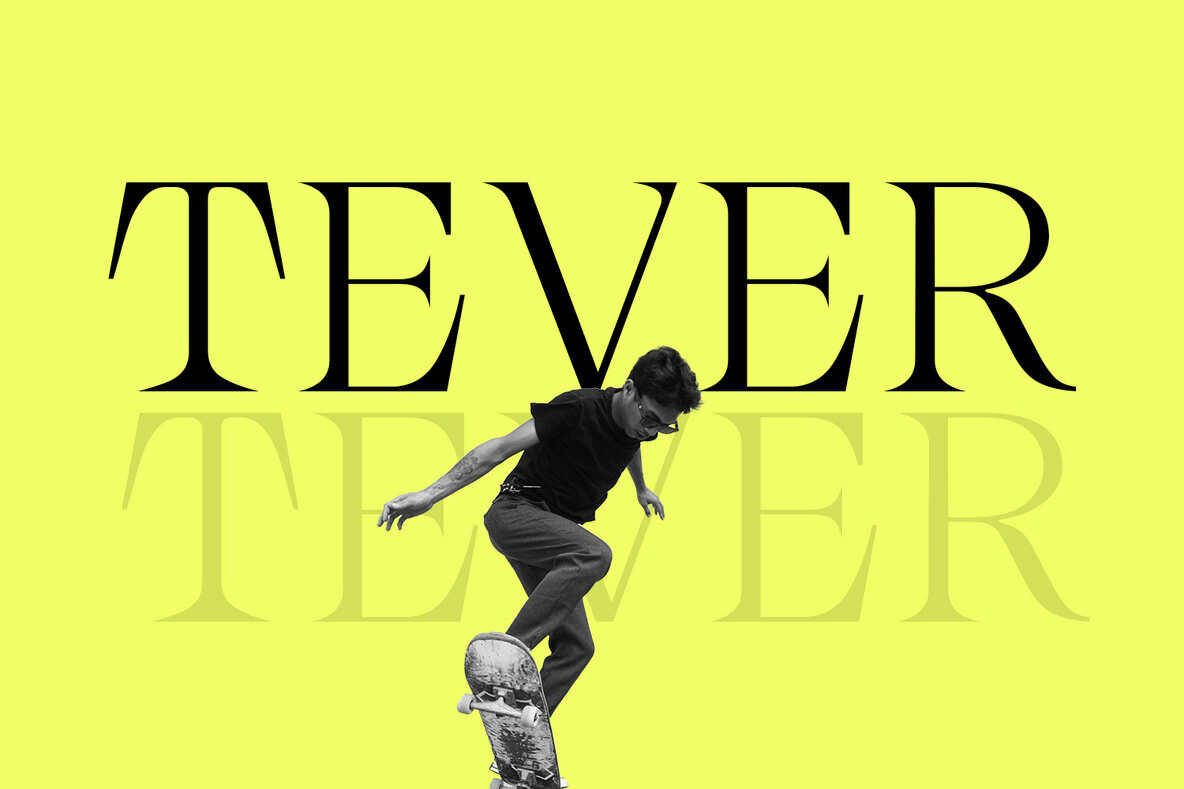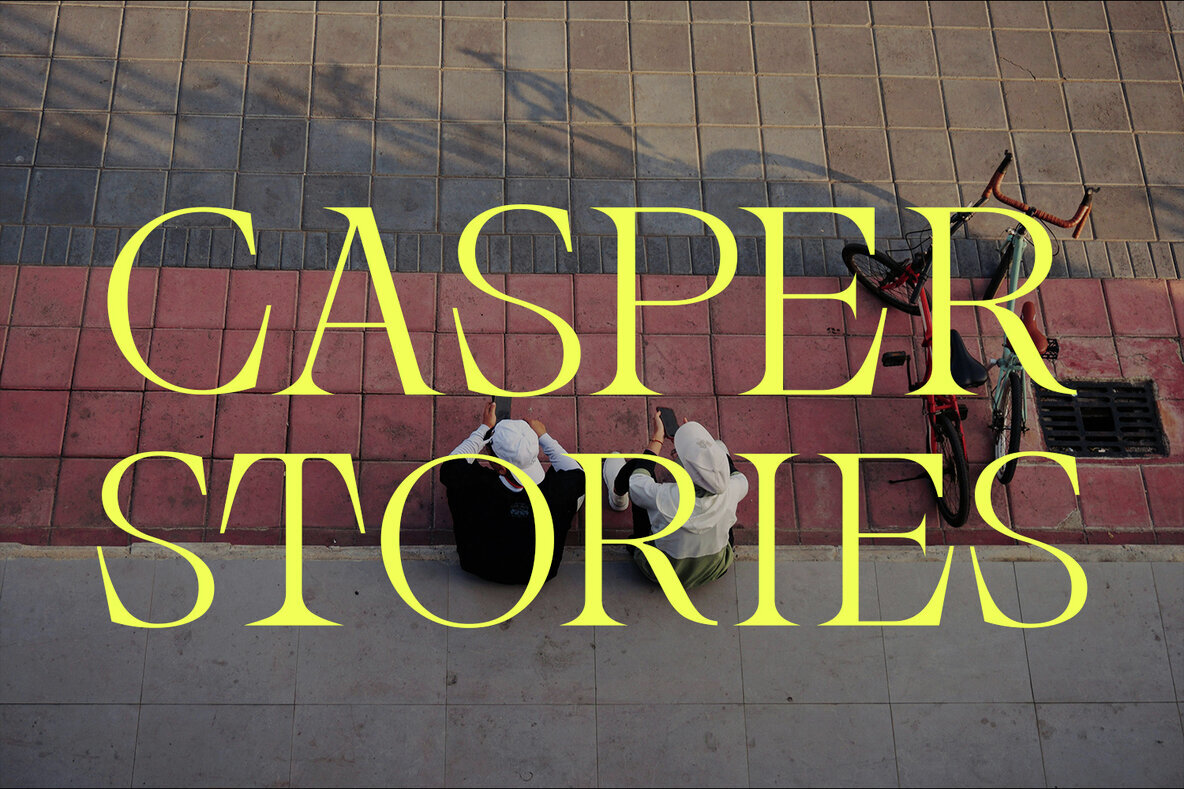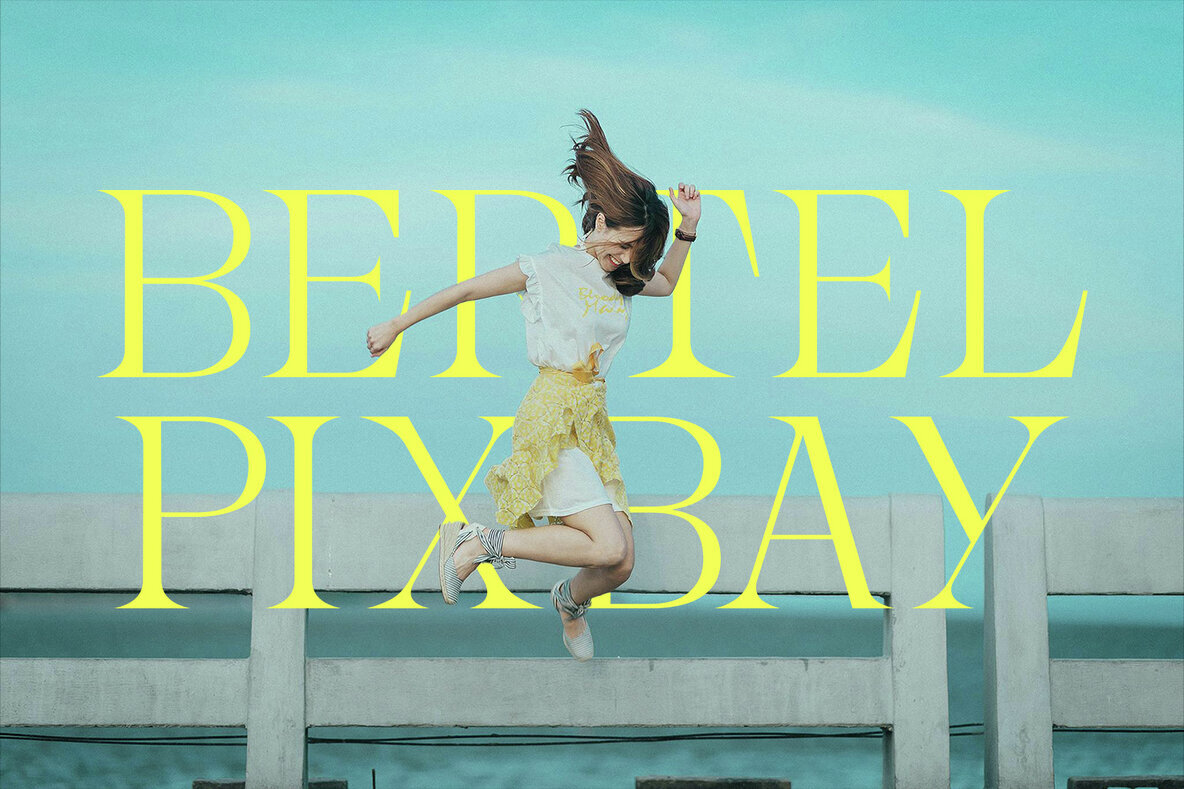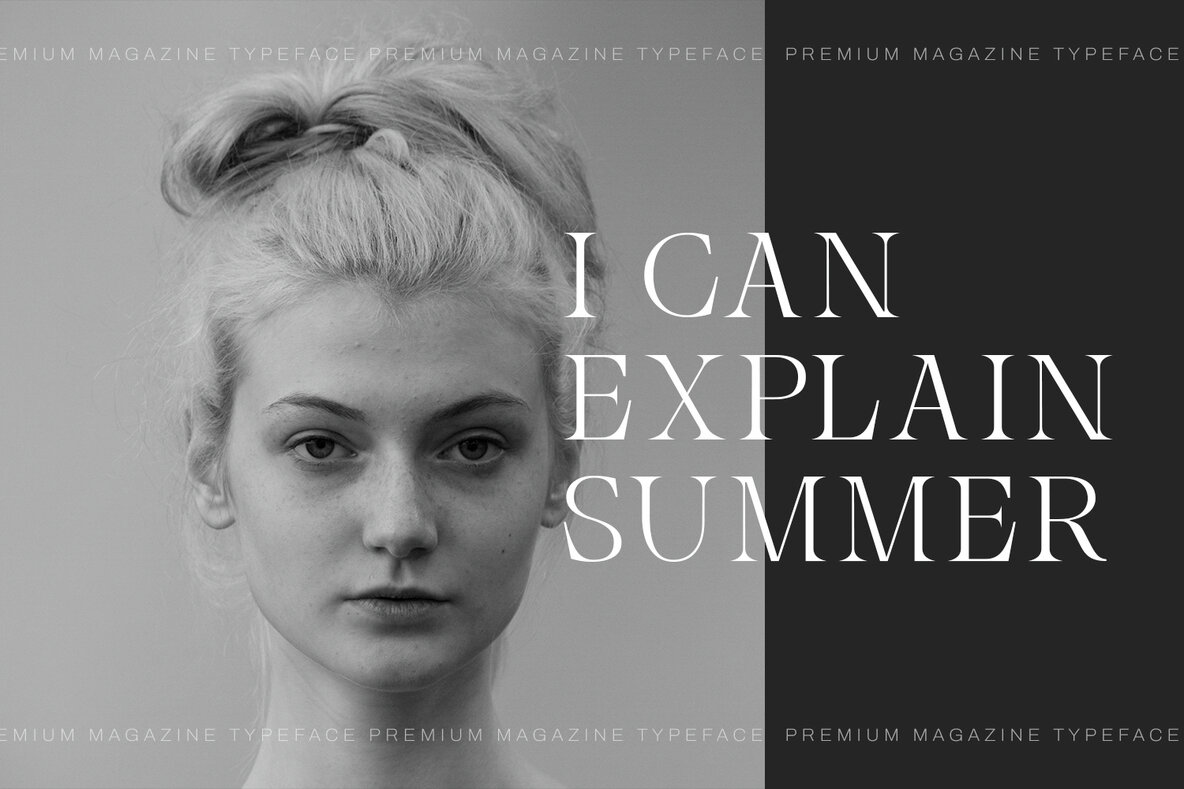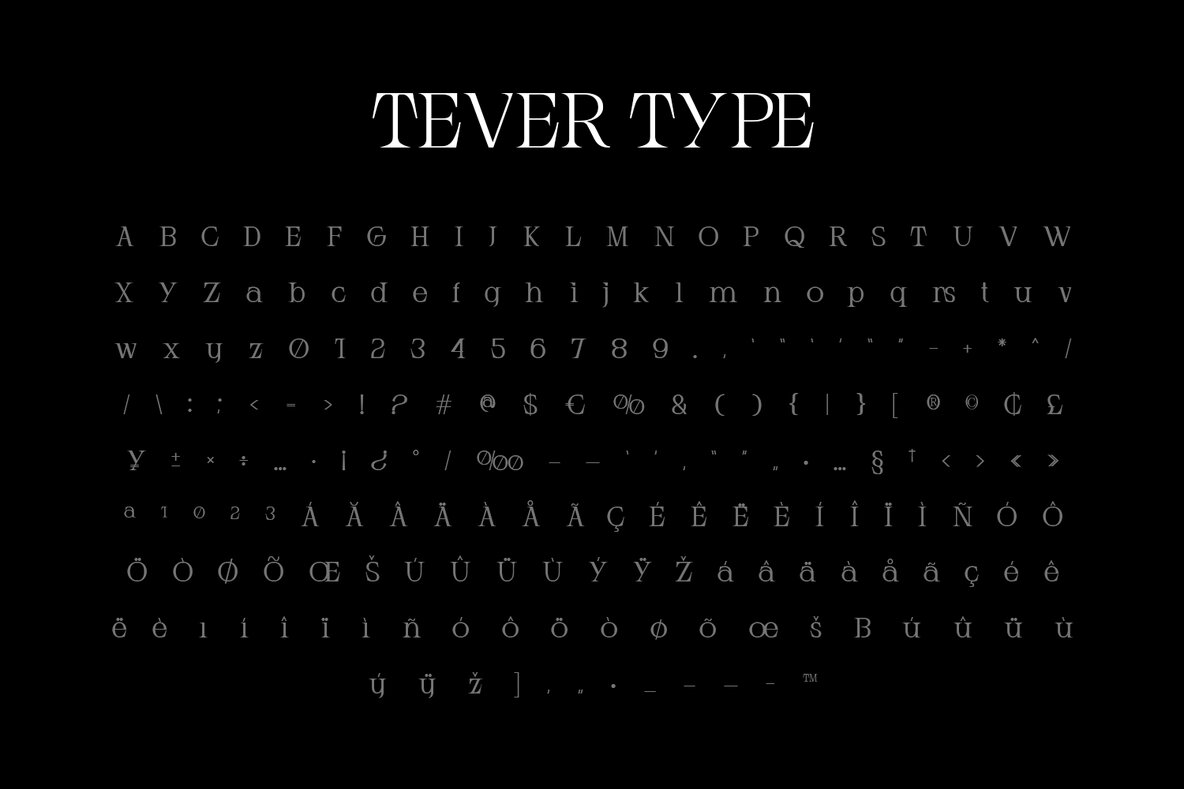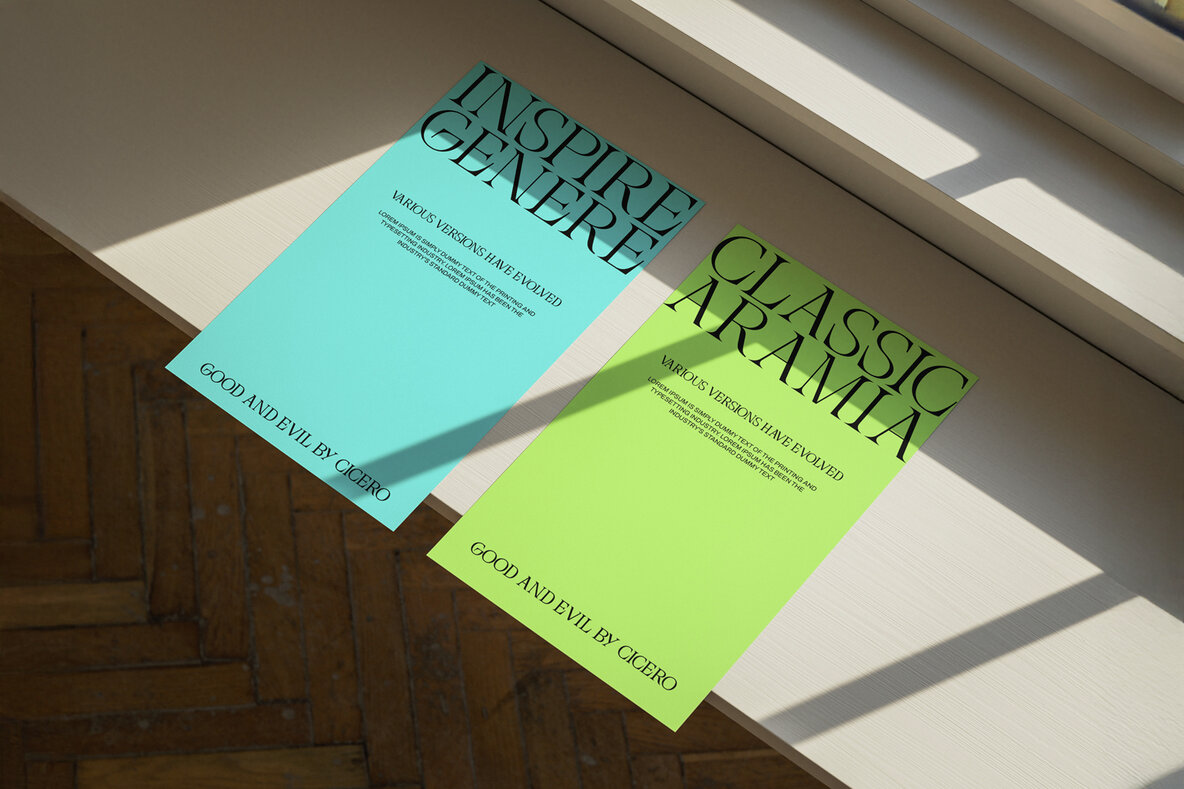
Tever Font
Tever Typeface Regular
Tever Typeface Medium
Introducing Tever Typeface by FoxType Co, a bold and elegant type family created for impactful branding and editorial ventures. Its perfect blend of grace and authority makes it ideal for magazine covers, fashion spreads, product packaging, and high-end brand identities. Tever’s clean lines, balanced proportions, and modern touch ensure it stands out without overwhelming your layout. Whether crafting a luxurious print cover or a modern visual identity, Tever guarantees your message is delivered with clarity, style, and distinction.Tever Typeface: Bold and Sophisticated